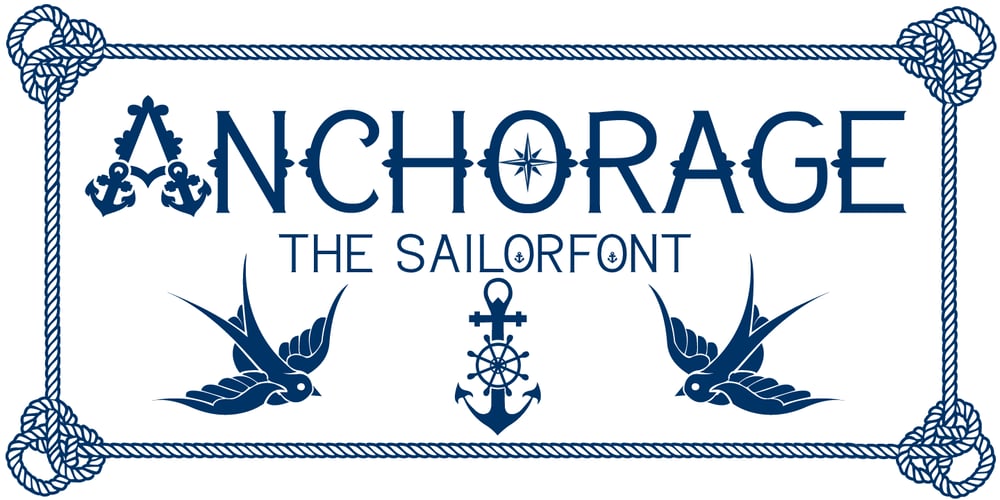
Anchorage Font Family was designed by Otto Maurer and published by Otto Maurer. Anchorage contains 9 styles and family package options. Anchorage is a maritime linear Font with Anchor Graphics in the Caps. This Font is for all Sailors and Captains all over the world. It comes in many styles and with a graphic Font full of maritime graphics.